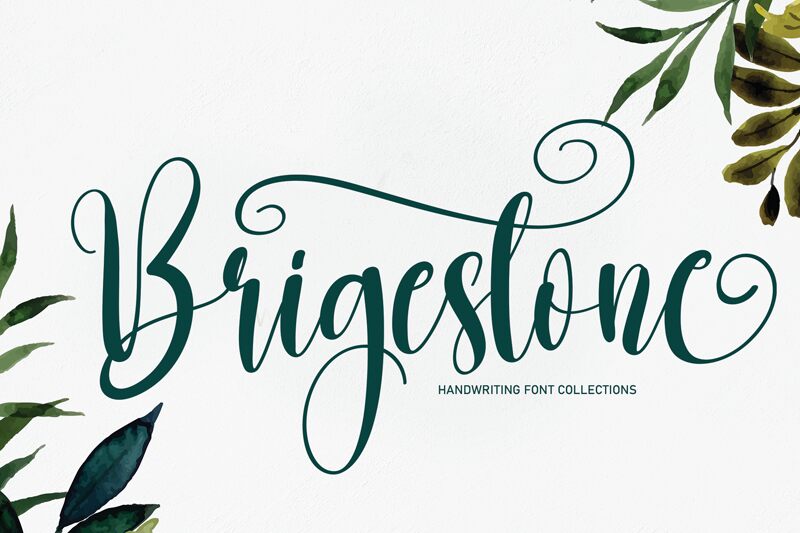
Brigestone
Brigestone, a calligraphy-inspired semi-light font by scratchones, exudes elegance with its fluid strokes and graceful curves. Its semi-condensed width makes it perfect for projects requiring a sophisticated touch without sacrificing readability. Ideal for wedding invitations, restaurant menus, and luxury branding campaigns, Brigestone lends an air of refinement to any design. Whether you're crafting a logo or designing a magazine spread, this versatile typeface is sure to impress. With its timeless appeal and modern sensibility, Brigestone is the perfect choice for anyone seeking a truly distinctive look.
the latest style letters are perfect for wall displays, wedding invitations, social media post logos, advertisements, product packaging, product designs, labels, photography, watermarks, invitations, stationery, and any project that requires taste handwriting.